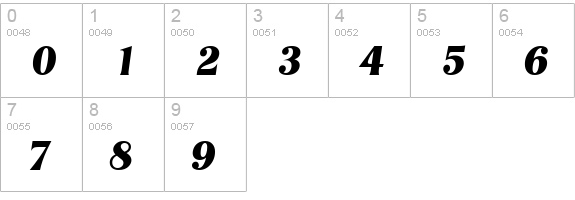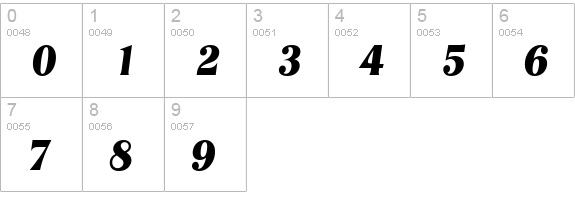
Tennessee Heavy SF Bold Italic is a heavy, high-impact, italic variant in the Tennessee typeface family \xE2\x80\x94 well suited to high-impact headlines, posters, and display advertising.
Introducing Tennessee Heavy SF Bold Italic font, a captivating and dynamic typeface that commands attention with its powerful presence. This font exudes strength and authority, making it perfect for headlines and titles that need to make a bold statement. With its thick and robust letterforms, Tennessee Heavy SF Bold Italic font captures the essence of confidence and versatility. The italicized slant adds a touch of elegance and sophistication, making it a versatile choice for various design projects. Whether used in print or digital media, this font is guaranteed to leave a lasting impression. Not only does Tennessee Heavy SF Bold Italic font possess a captivating design, but it also offers the added benefit of being freely available to download. FontsMarket.com, the leading online resource for high-quality fonts, proudly offers this font for free. This means that designers, creatives, and enthusiasts alike can access and utilize this exceptional font without any financial constraints. The ease of access to Tennessee Heavy SF Bold Italic font allows for endless opportunities for its implementation. Whether it's for personal or commercial use, this font can seamlessly enhance any project, from logo designs and advertisements to website headings and social media graphics. Its versatility knows no bounds. So, don't miss out on the chance to elevate your designs with the commanding presence of Tennessee Heavy SF Bold Italic font. Download it freely at FontsMarket.com and unleash its potential to captivate and engage your audience. With this font, your creativity will know no limits.